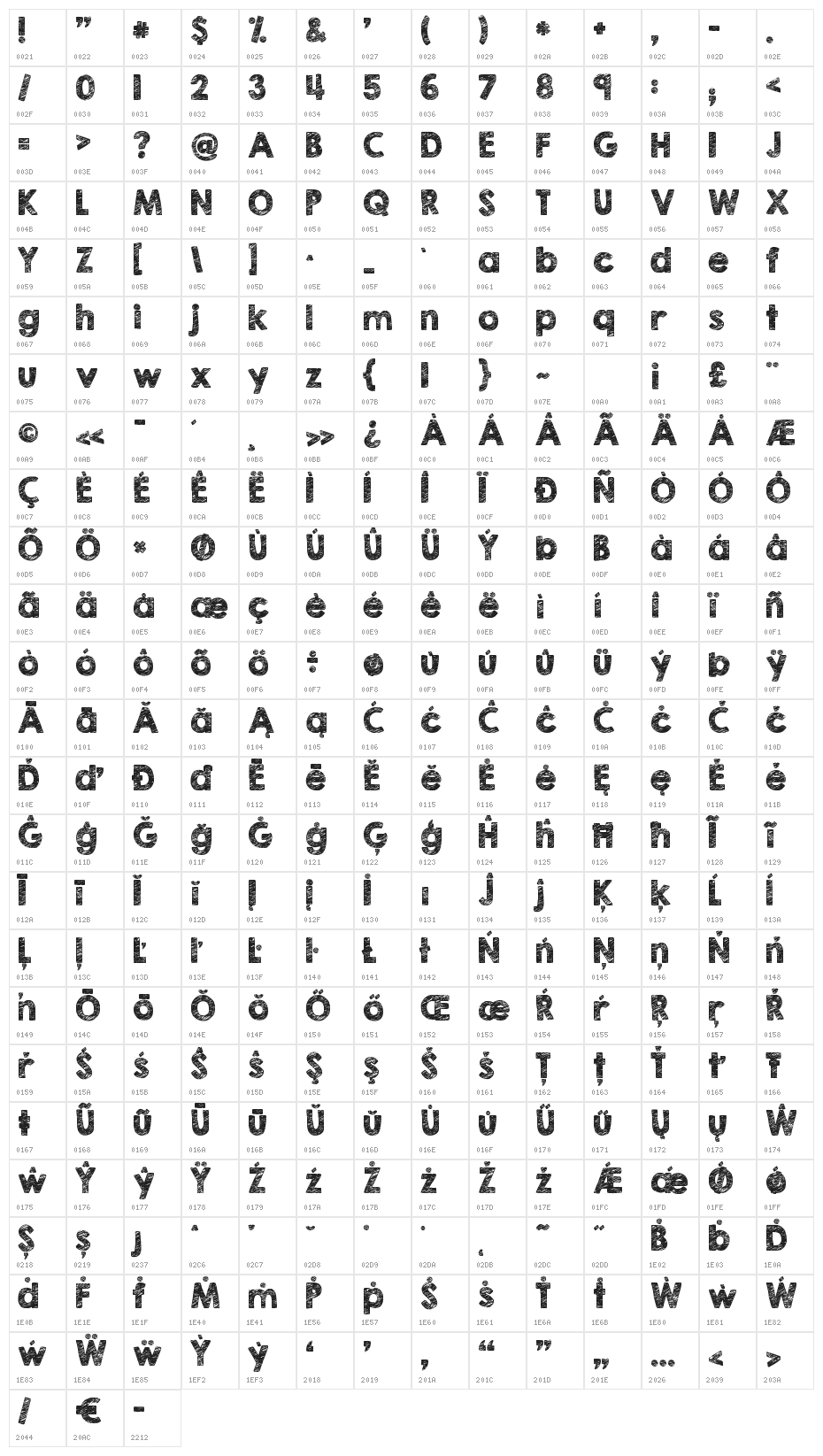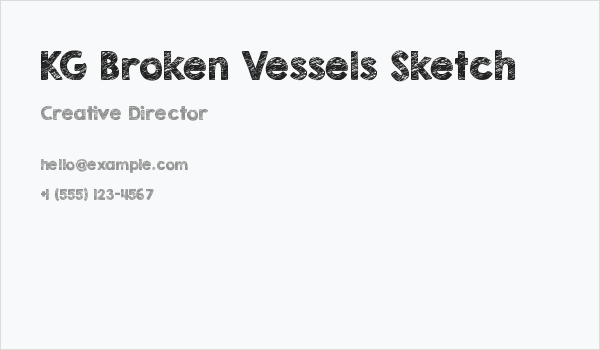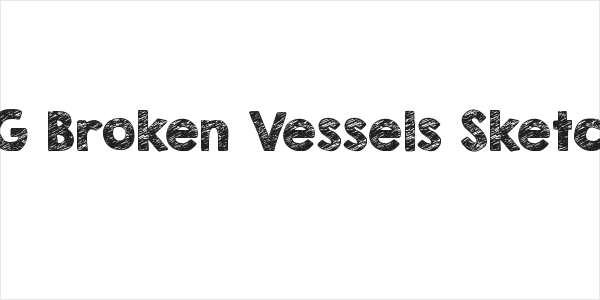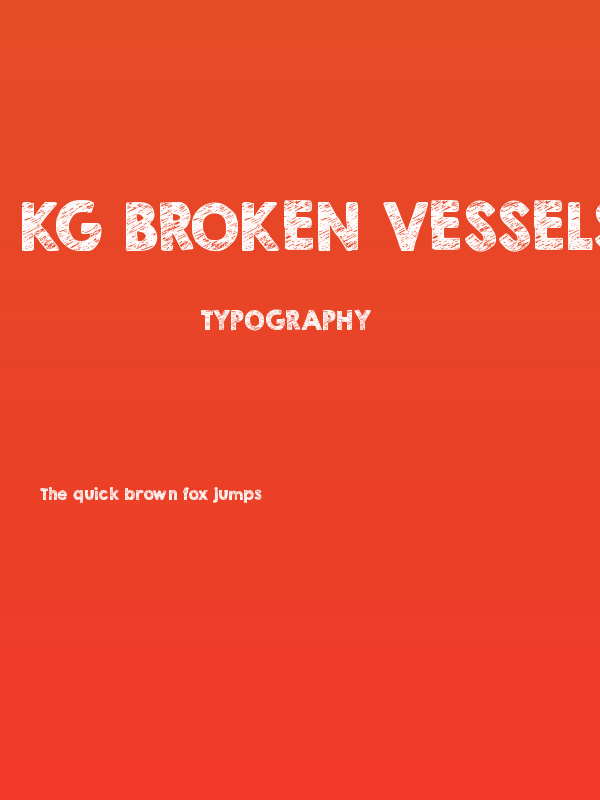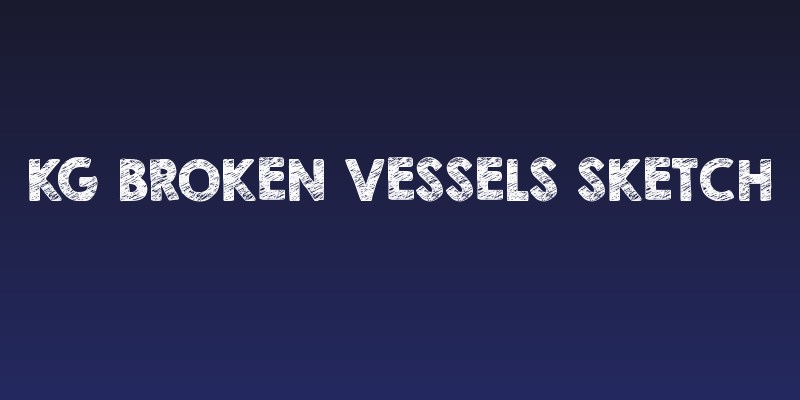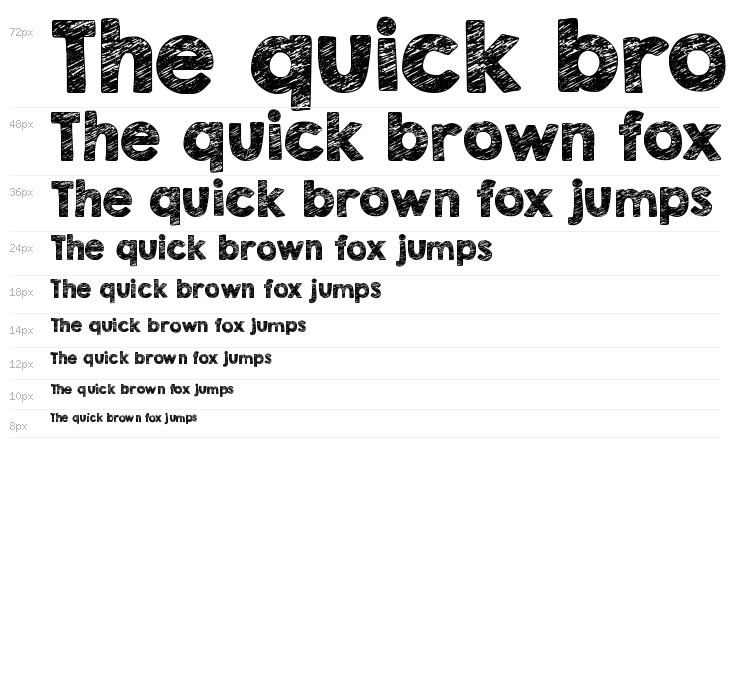
KG Broken Vessels Sketch Font
KG Broken Vessels Sketch Description
This font features a bold, textured style that mimics a hand-drawn, sketch-like appearance. Each character is filled with a rough, scribbled pattern, giving it a unique, artistic look. The letters are bold and rounded, with a playful and informal vibe. The texture adds depth and interest, making it stand out in any design. The font maintains a consistent weight throughout, with a slightly condensed width that enhances its boldness. The character spacing is normal, allowing for easy readability despite the intricate detailing. This font is perfect for projects that require a creative and casual touch.
| Proposed Projects | Ideal for creative projects such as posters, invitations, and artistic branding. |